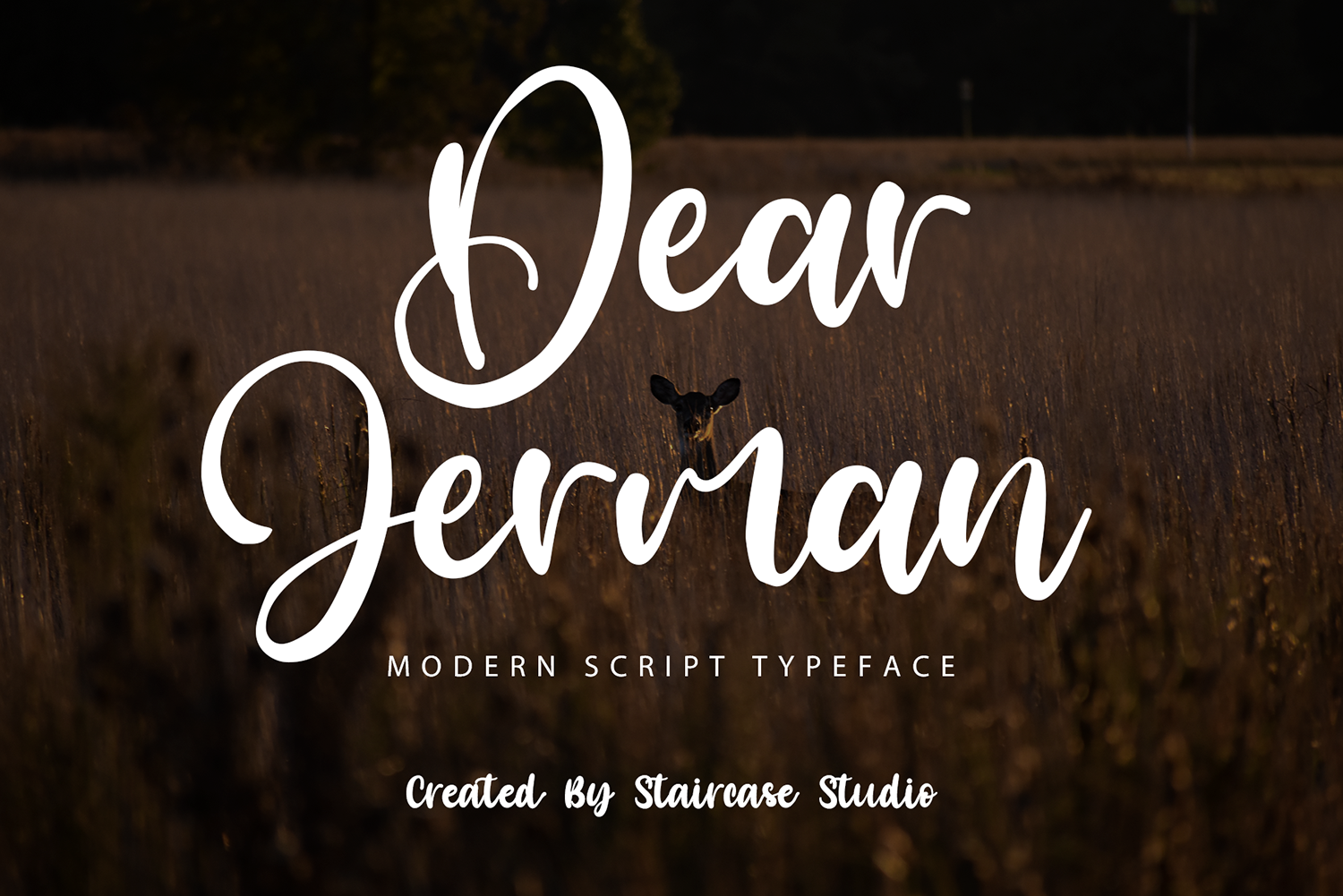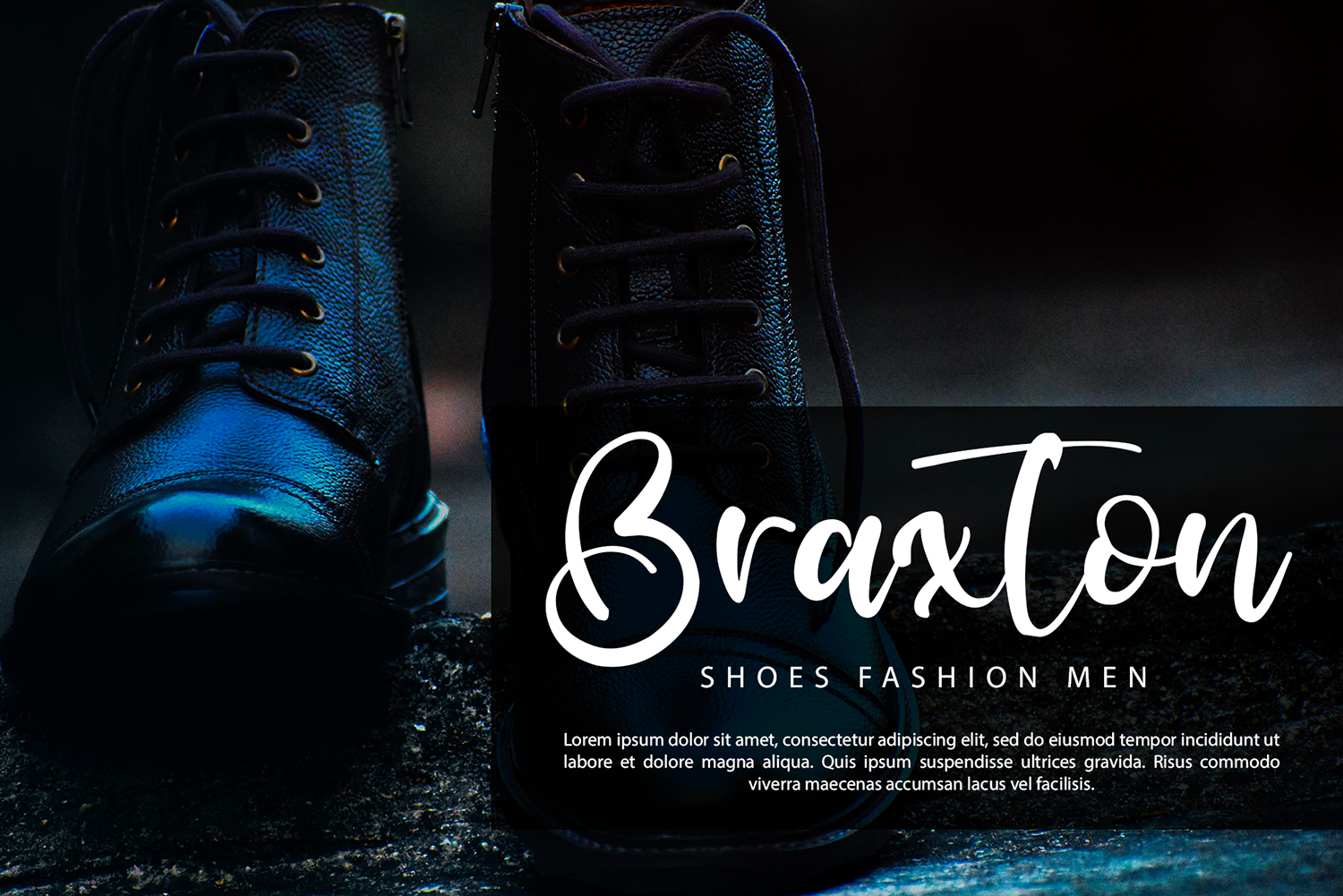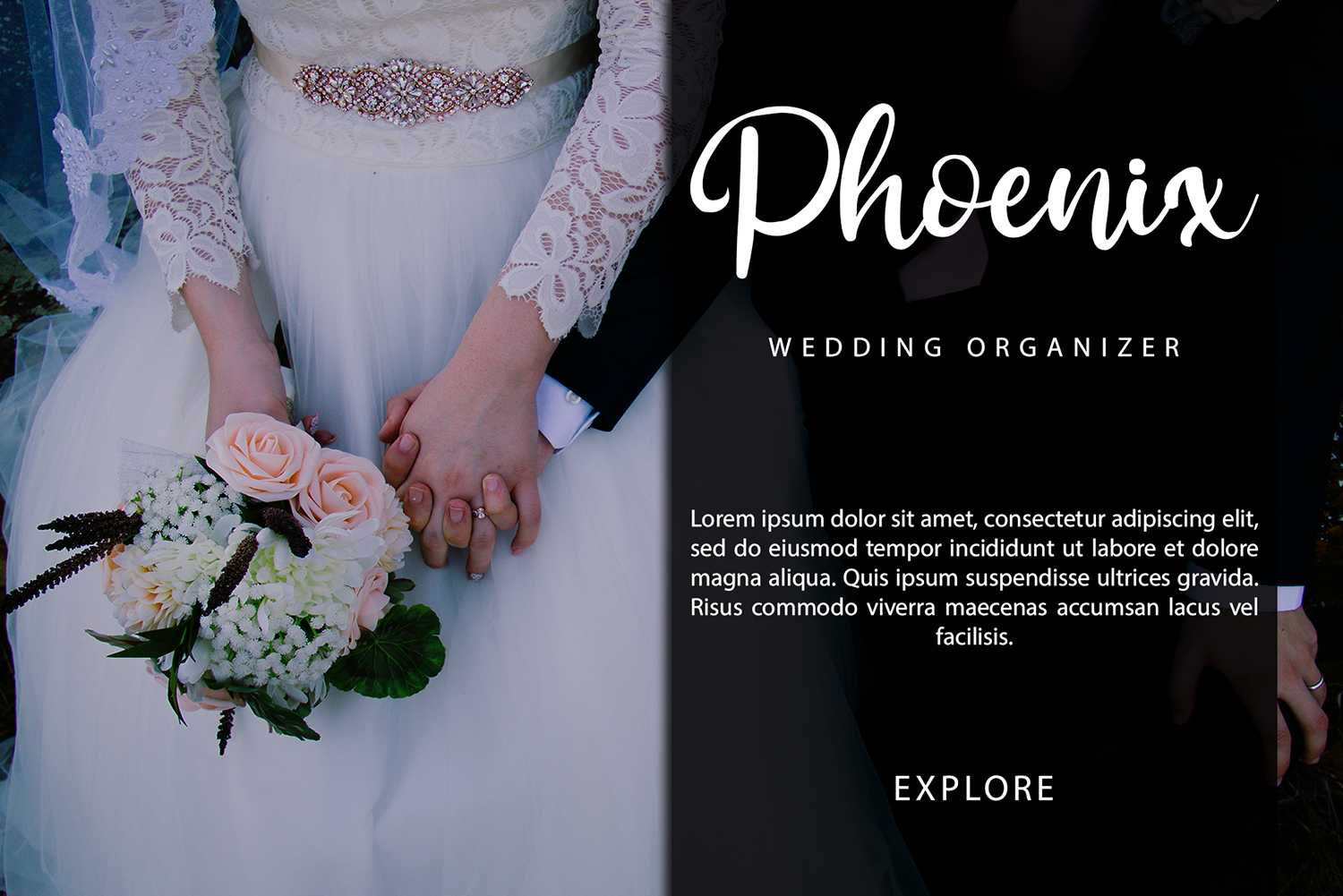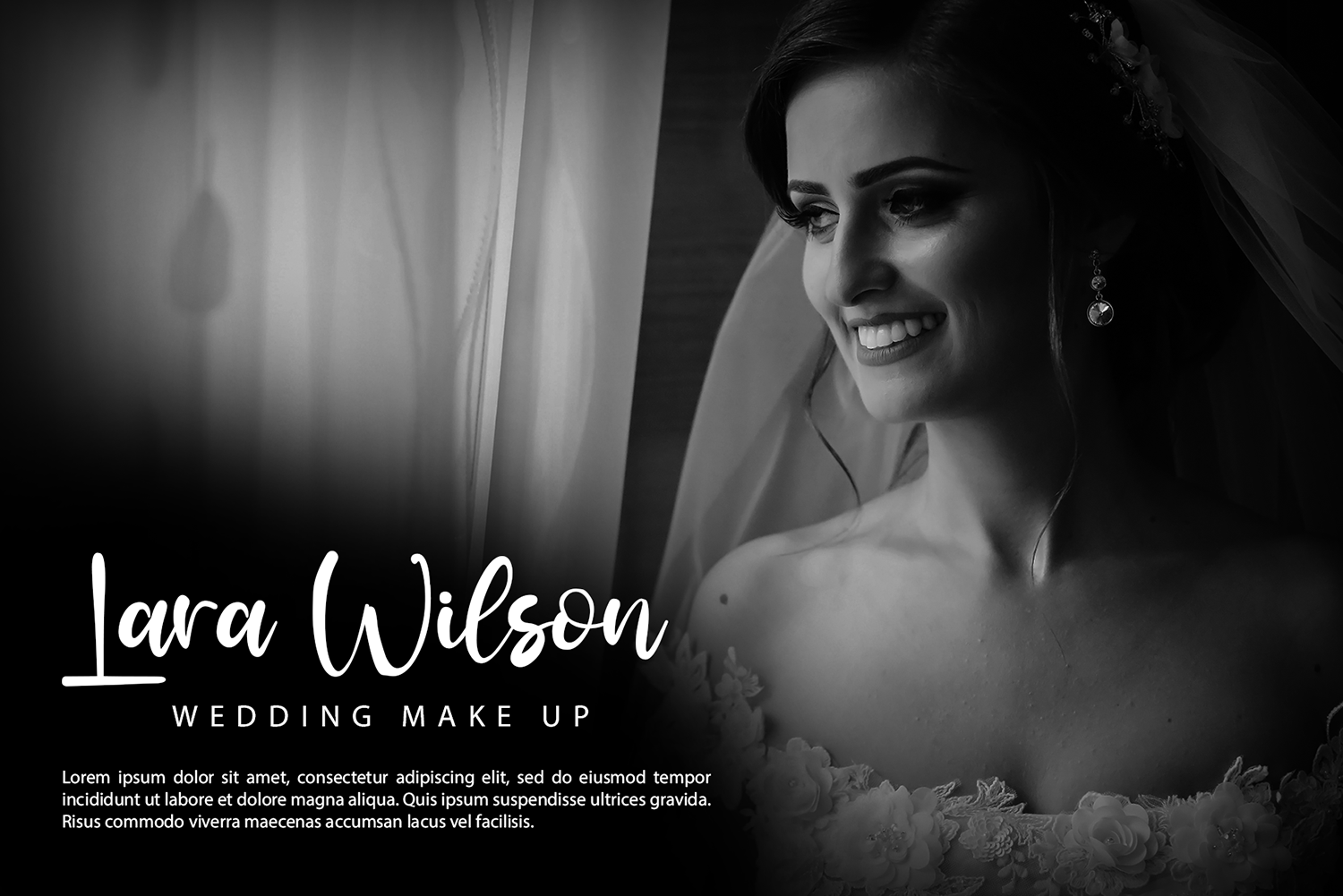
Dear Jerman Free Font
Introducing Dear Jerman, a cutting-edge script font that encapsulates contemporary aesthetics. This font comes complete with an assortment of letters and numbers, making it an ideal choice for a multitude of projects. Whether you’re crafting logotypes, enhancing branding materials, designing logos, exploring digital lettering arts, curating t-shirts and apparel, conceptualizing posters, curating magazines, conceiving signs, or brainstorming advertising layouts, Dear Jerman is your versatile companion for all these creative endeavors and beyond. This free typeface was designed by a talentedΒ Staircase Studio. If you like it don’t forget to check out the full version.